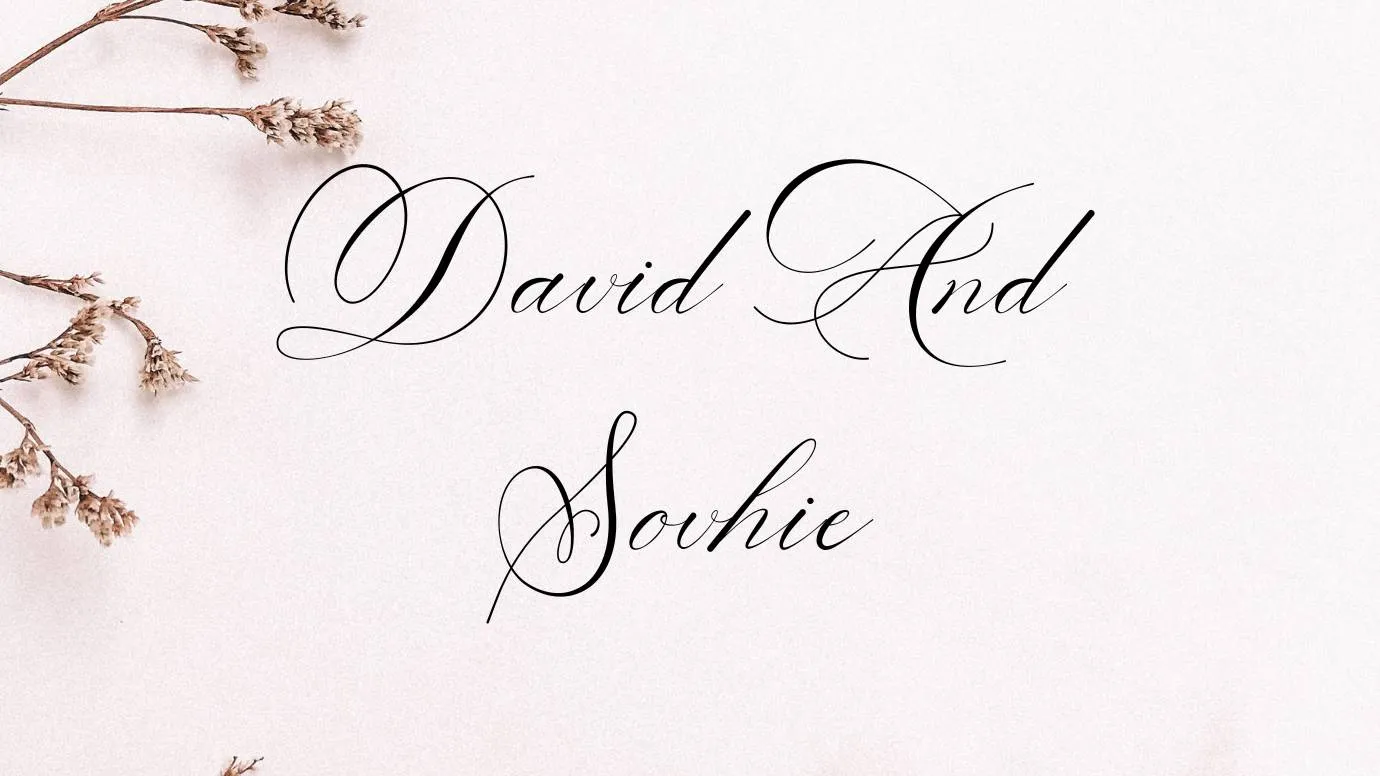
David And Sovhie Font Family comes in calligraphy type. This font family has thin and sharp swashes that have unique edges. David Kasidi is the designer of this amazing look typeface.
| Name | David And Sovhie Font |
| Type | Calligraphy |
| Designer | David Kasidi |